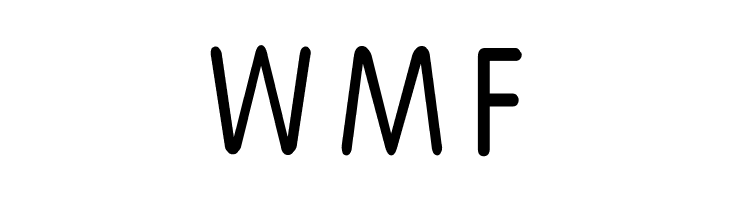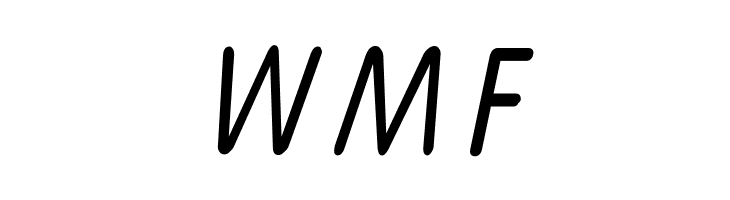
Dreamspeak Font
A modern, rounded sans-serif font with a clean and approachable design.
Dreamspeak Bold Font
A bold, rounded sans-serif font with a modern and friendly appearance.
Dreamspeak Bold Italic Font
Dreamspeak Italic Font
A modern, italic sans-serif font with a sleek and dynamic style.